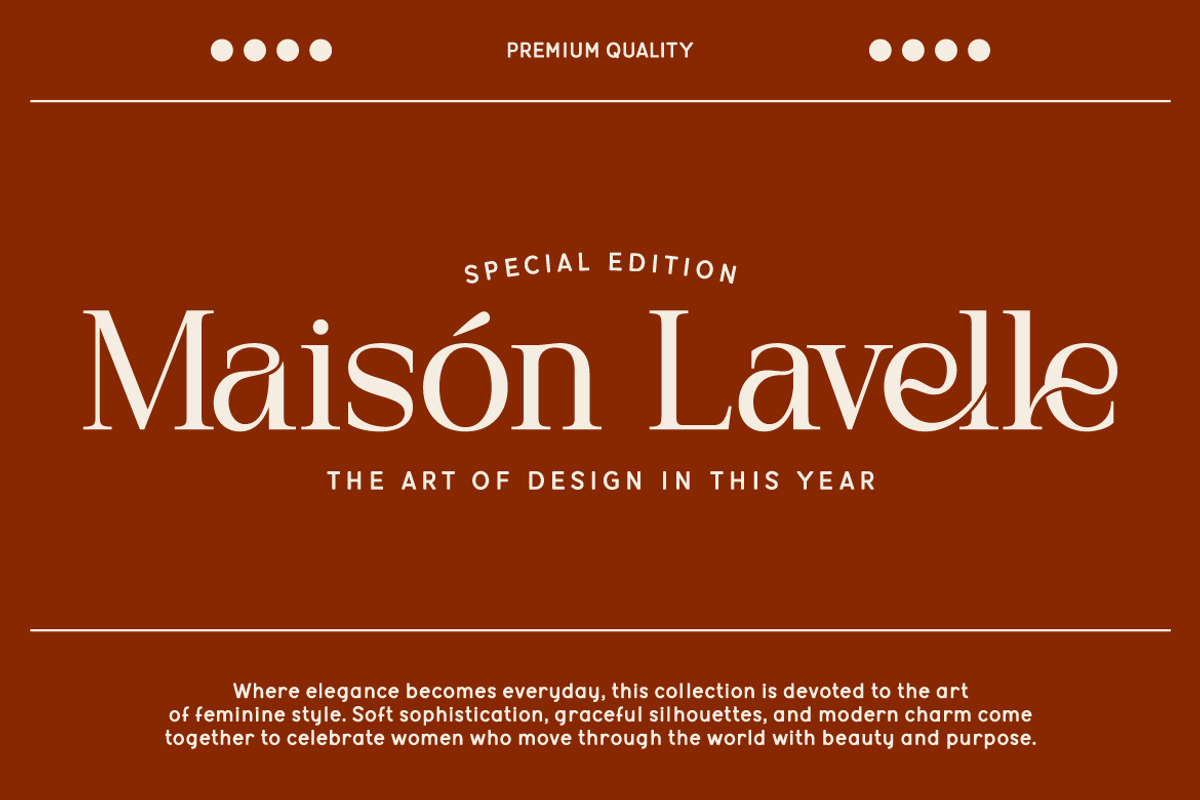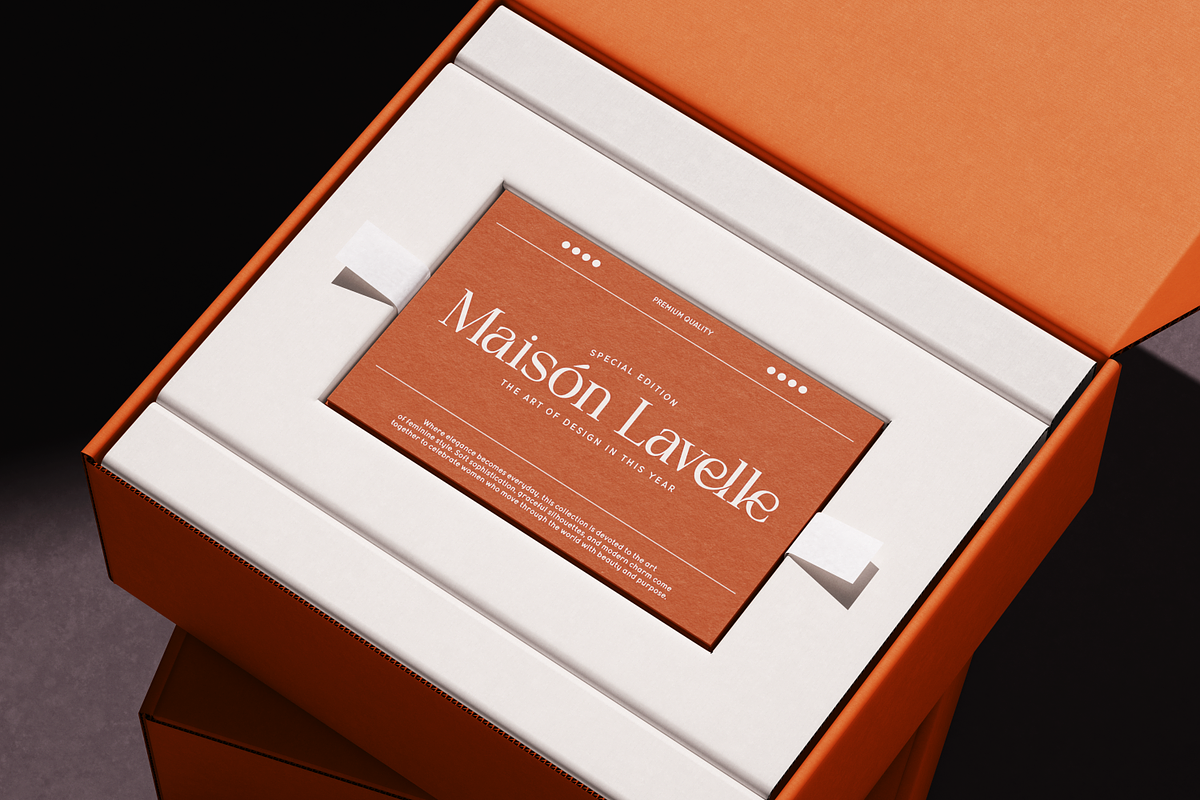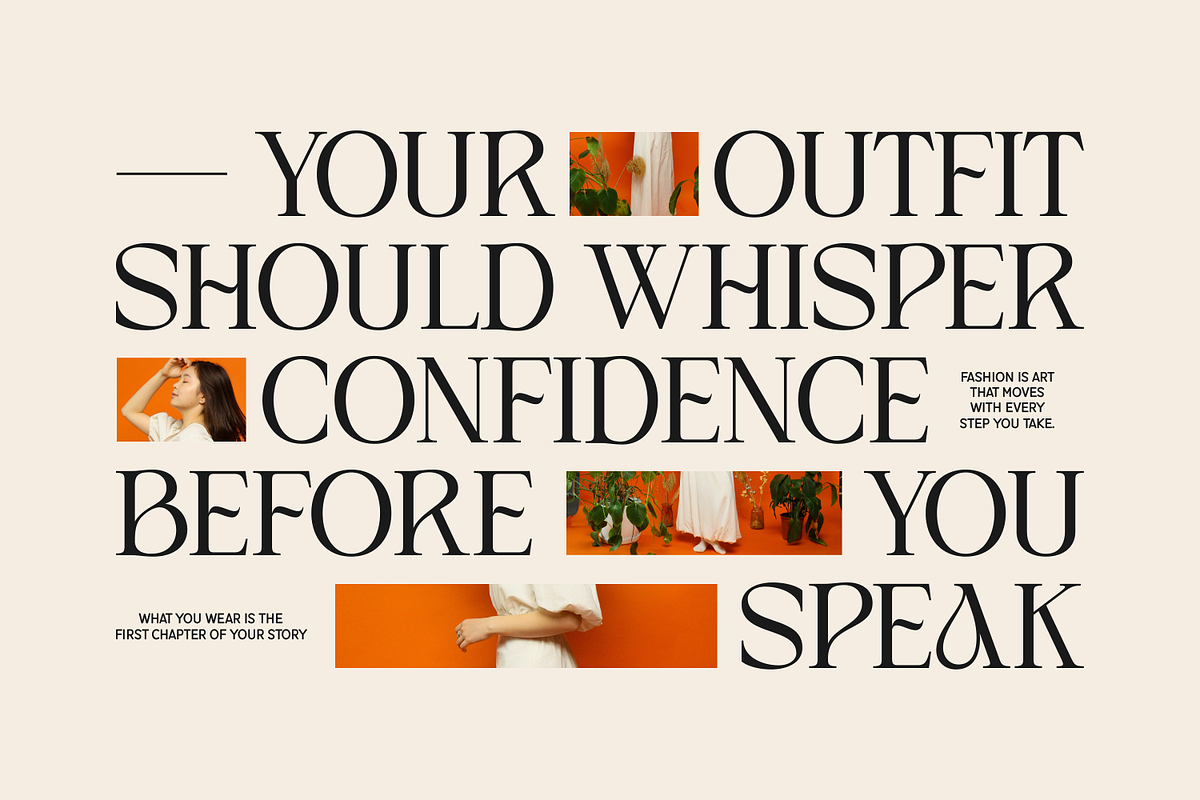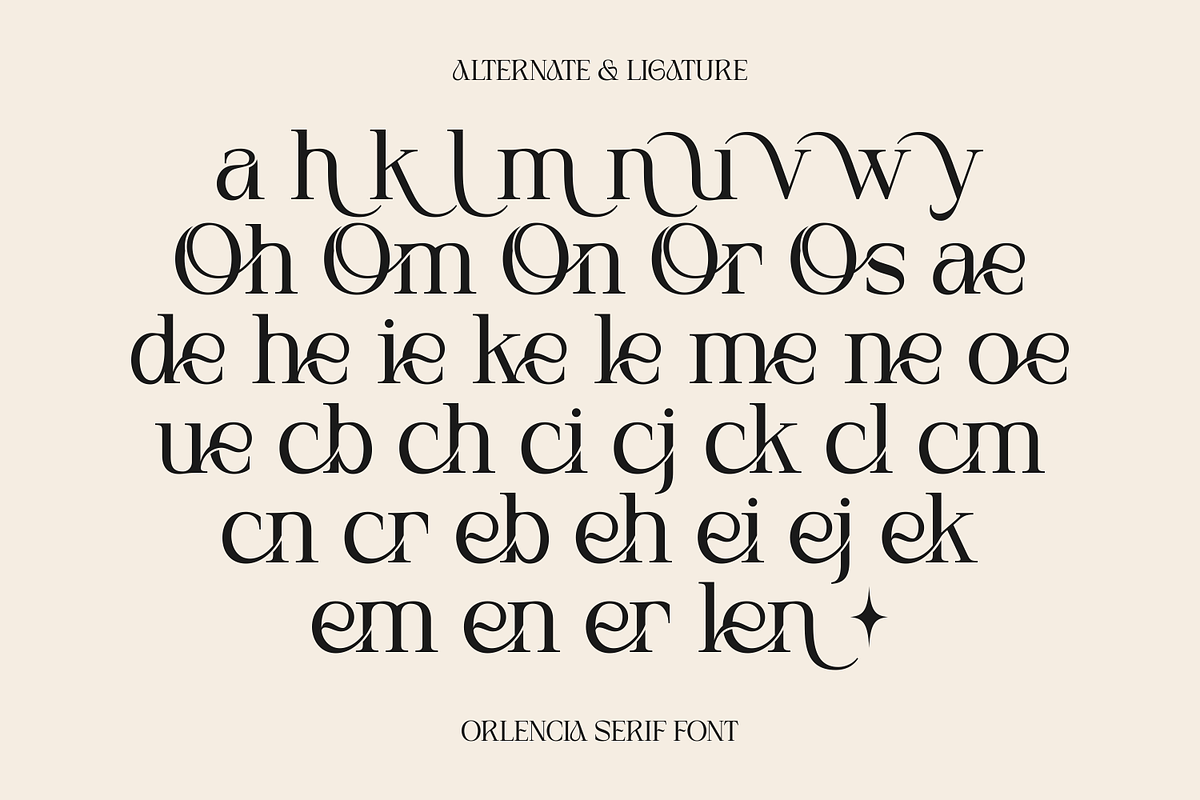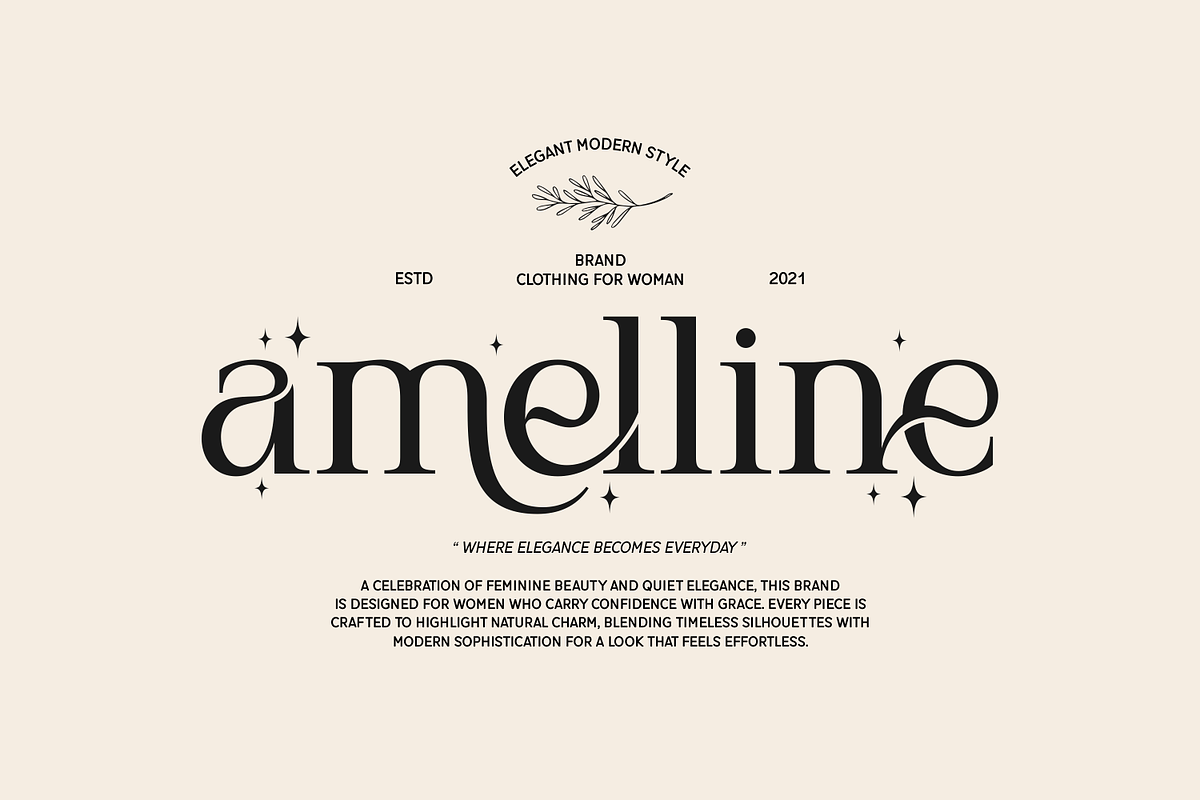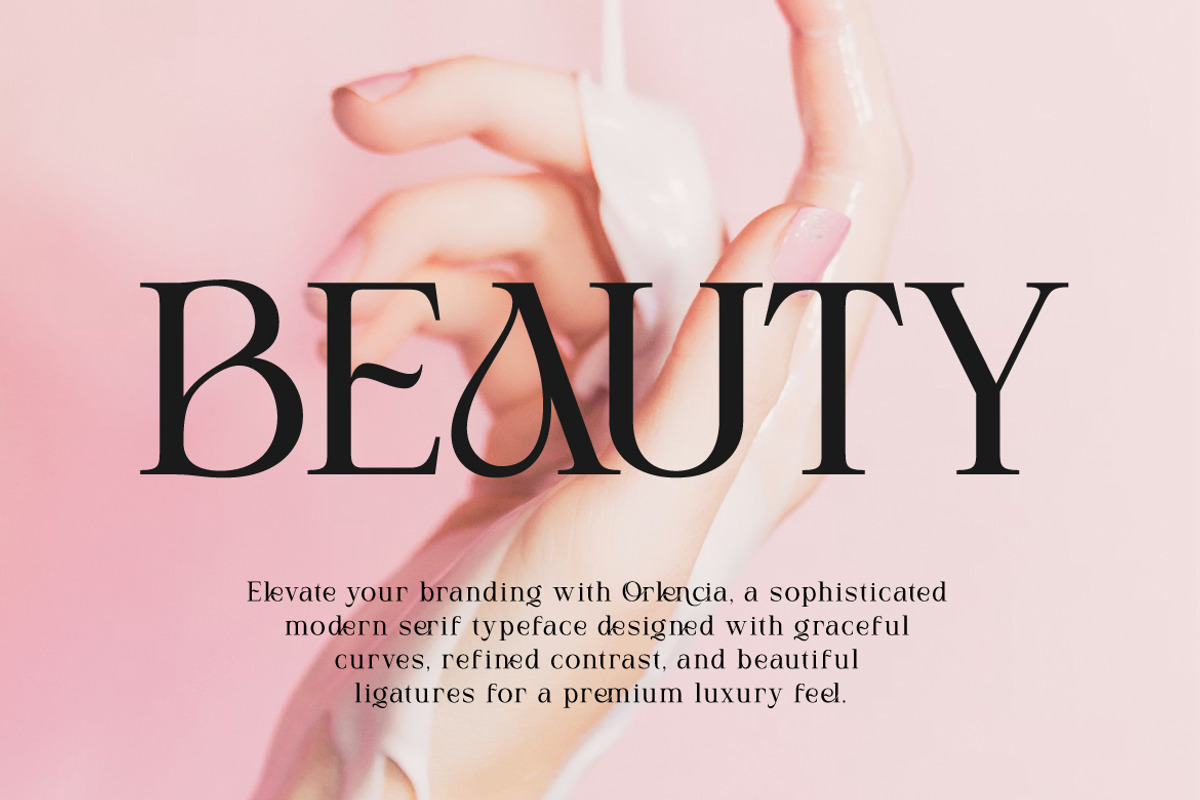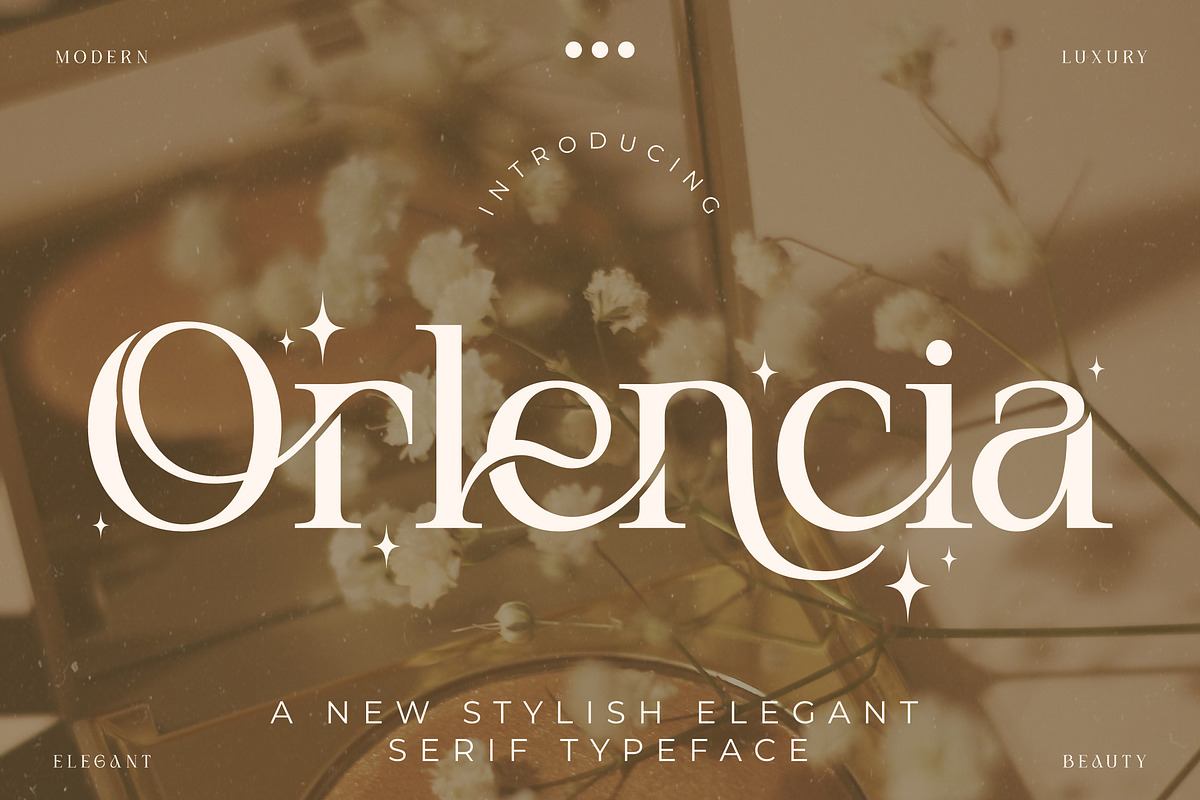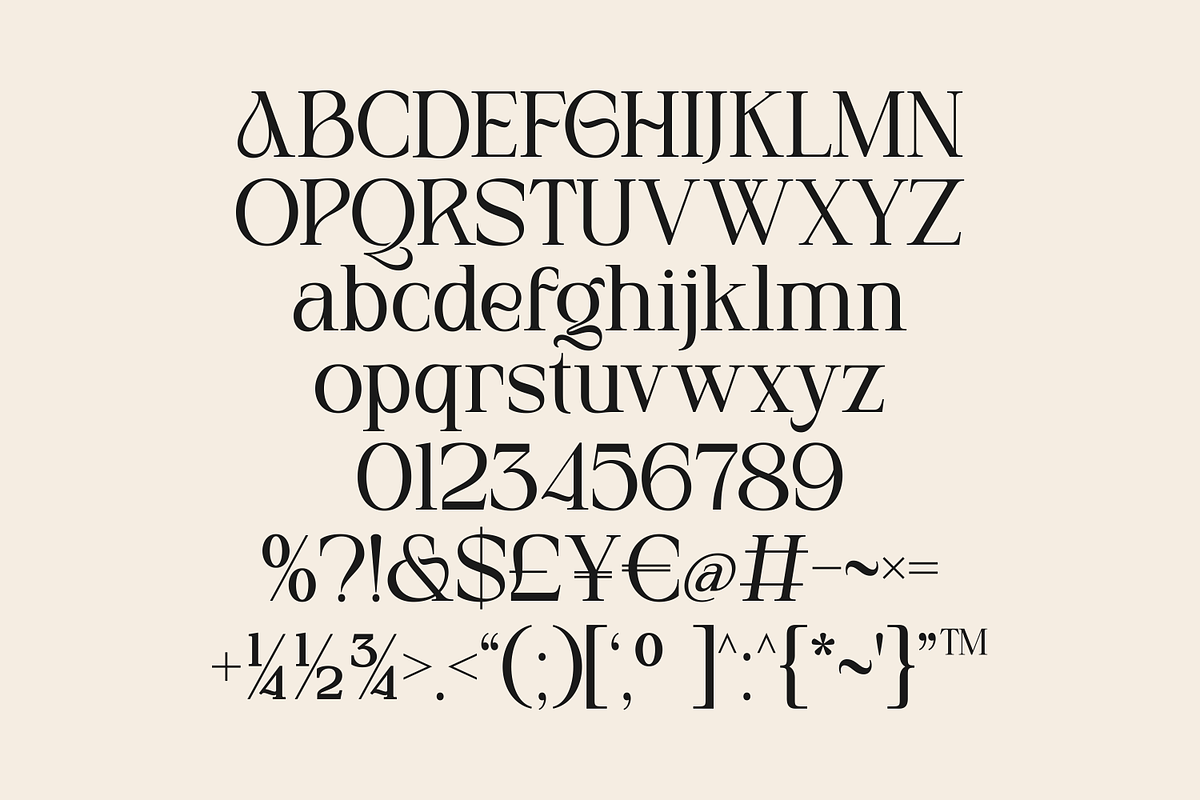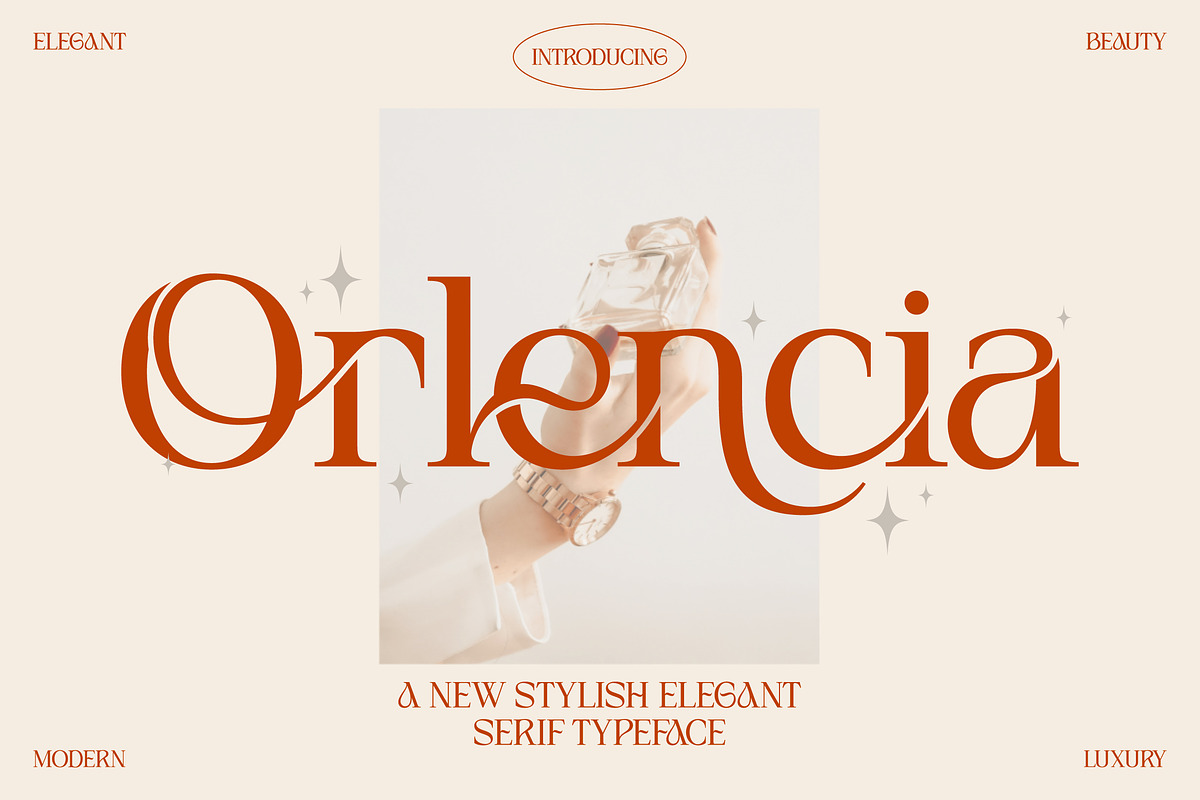
Orlencia – Elegant Modern Serif Font
Orlencia is a modern elegant serif typeface designed to bring a sense of luxury, sophistication, and timeless beauty to your designs. With its graceful curves, refined contrast, and stylish ligatures, Orlencia is perfect for branding projects that require a premium and feminine touch. This typeface blends classic serif elegance with modern aesthetics, making it ideal for fashion branding, beauty packaging, editorial layouts, wedding designs, and luxury logos. Orlencia also features beautiful alternates and ligatures that enhance typography and create stunning wordmarks effortlessly.
- Fashion Branding
- Luxury Logos
- Beauty & Cosmetic Packaging
- Editorial Design
- Wedding Invitations
- Magazine Layouts
- Social Media Graphics
- Boutique Branding
- Stylish Ligatures
- Alternates Characters
- Elegant Serif Style
Orlencia is crafted to deliver a sophisticated and modern typographic experience that elevates any creative project.